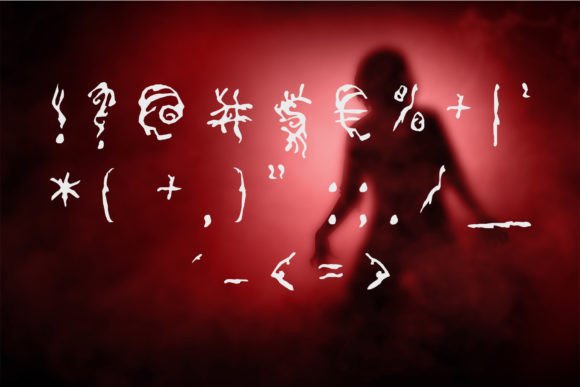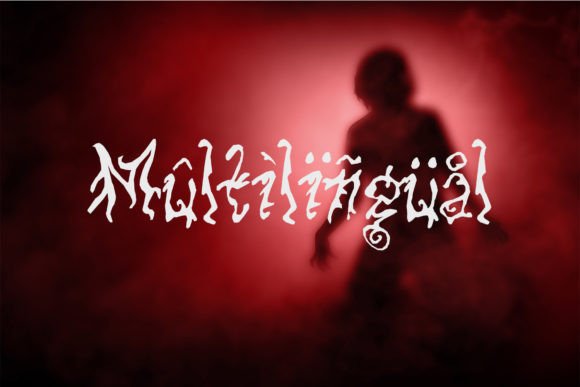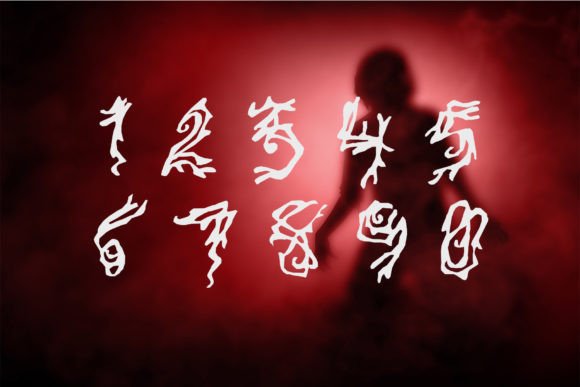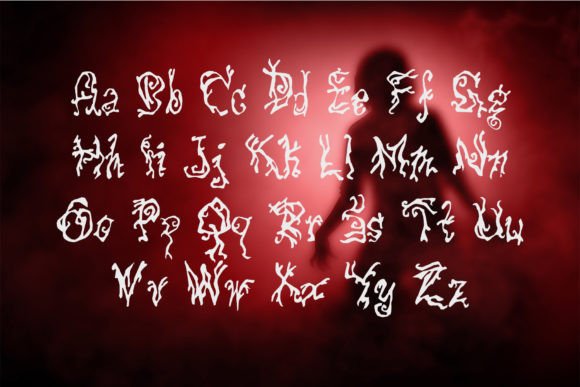
Introduction to Friday 13th Font
As a designer, you know the feeling of being stuck on a creative project. You’ve got the perfect idea, but the font just isn’t quite right. It’s like trying to put a puzzle piece in the wrong spot – it’s just not going to fit. But what if I told you there’s a font that’s guaranteed to make your designs pop? Enter the Friday 13th Font, a whimsical and quirky display font that’s sure to add some much-needed magic to your project.
- High-quality design: The Friday 13th Font is a premium font designed for creative projects, offering a unique and striking look.
- Unique characteristics: The Friday 13th Font features a bold, distressed design with a horror theme, making it perfect for creative projects with a dark or spooky tone.
Honest Review: Friday 13th Font
I recently stumbled upon the Friday 13th Font, a free download that’s caught my attention for its spooky charm. As a designer, I’m always on the lookout for high-quality design resources that can elevate my creative projects.
What works well about this font is its unique blend of gothic and horror elements. The designer has done an excellent job in crafting a font that’s both eerie and sophisticated. The transparent background allows for seamless integration with any design, making it a versatile design resource.
- ✨ Unique blend of gothic and horror elements
- ✨ Transparent background for easy integration
However, there are a few limitations to consider. The font may not be suitable for projects that require a more subtle or neutral tone. Additionally, the font’s complexity may make it challenging to use for beginners.
Overall, I’m impressed with the Friday 13th Font’s potential as a design resource. While it may not be for everyone, it’s definitely a great addition to any designer’s toolkit. With its unique style and high-quality design, it’s sure to add a touch of spooky sophistication to any creative project.
Tips for Getting the Most Out of the Friday 13th Font
Here are a few tips for getting the most out of the Friday 13th Font:
- Use the font on a transparent background to create a modern and sleek look.
- Pair the font with other design elements, such as images and graphics, to create a visually appealing design.
- Experiment with different font sizes and styles to add depth and interest to your design.
Common Use Cases for the Friday 13th Font
The Friday 13th Font is a versatile design resource that can be used in a variety of creative projects, including:
- Graphic design projects, such as logos and business cards.
- Digital design projects, such as social media graphics and website design.
- Print design projects, such as posters and flyers.